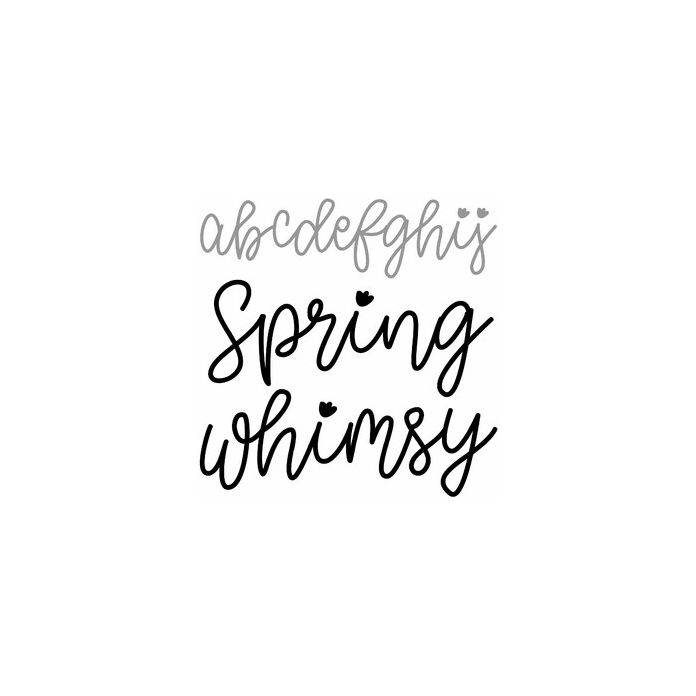
Cute for Easter, Spring, Birthdays, cards, monograms, signs, and personalization projects. Spring Whimsy is a a bouncy handwriting style script font. Includes alphabet, numbers, and punctuation.